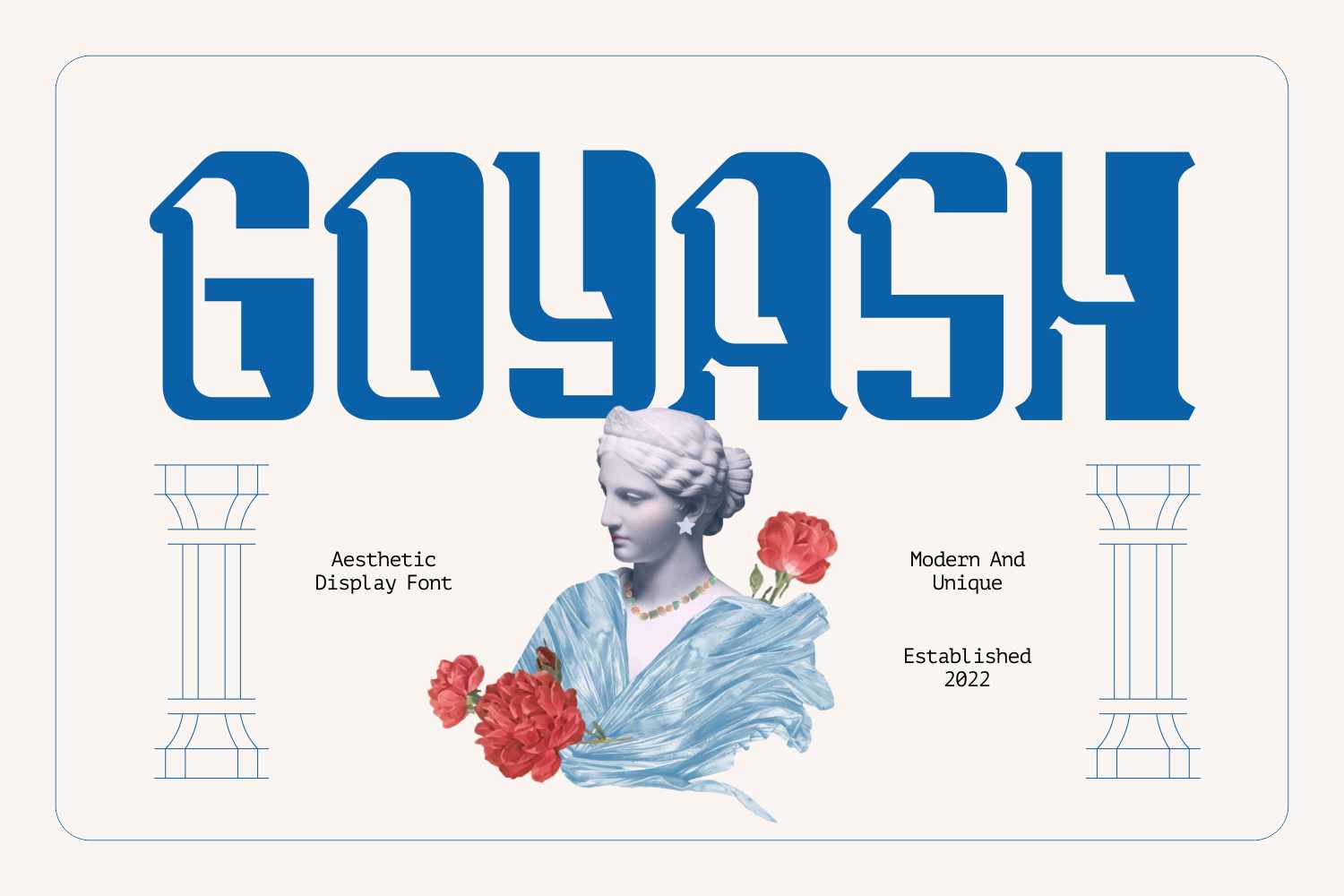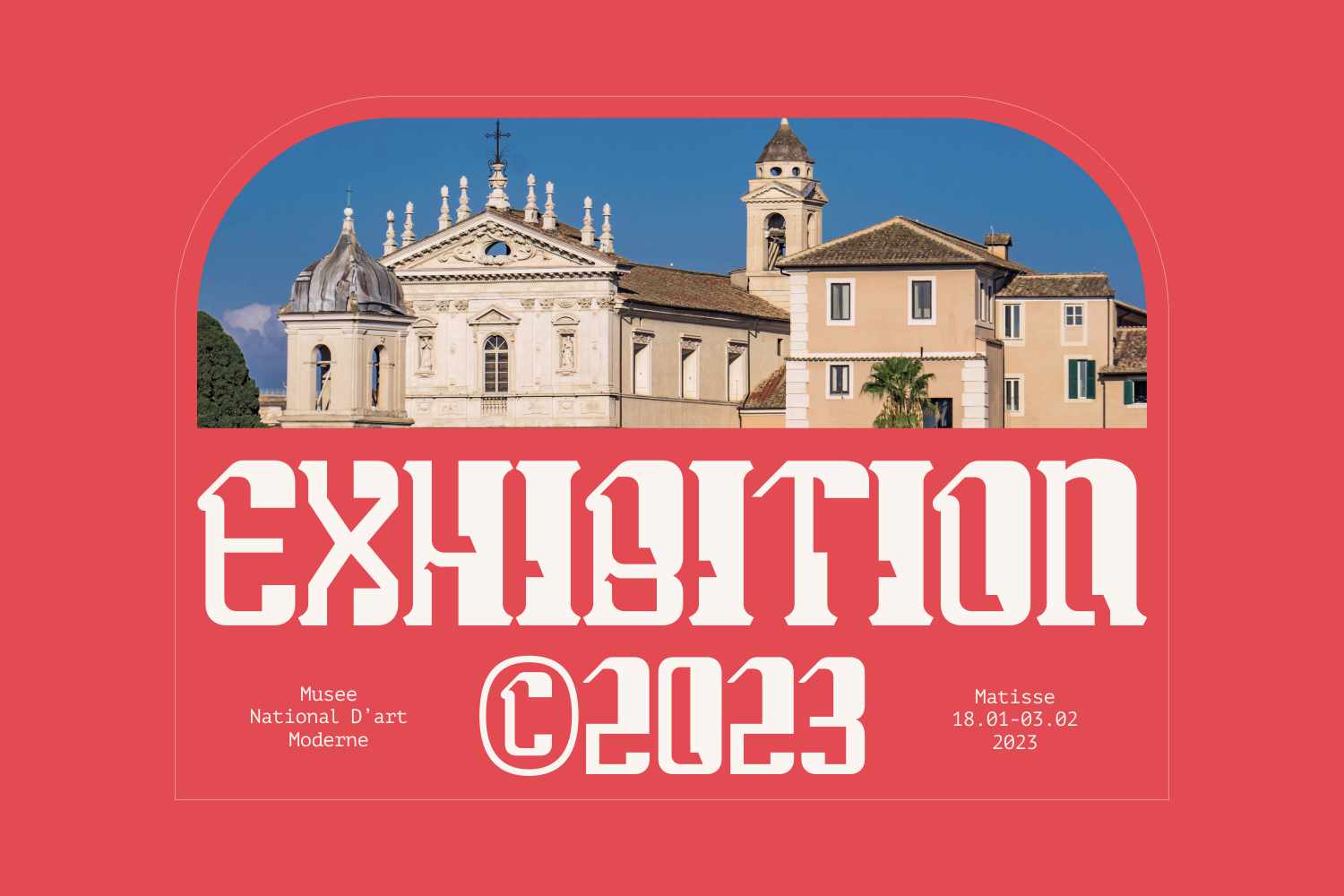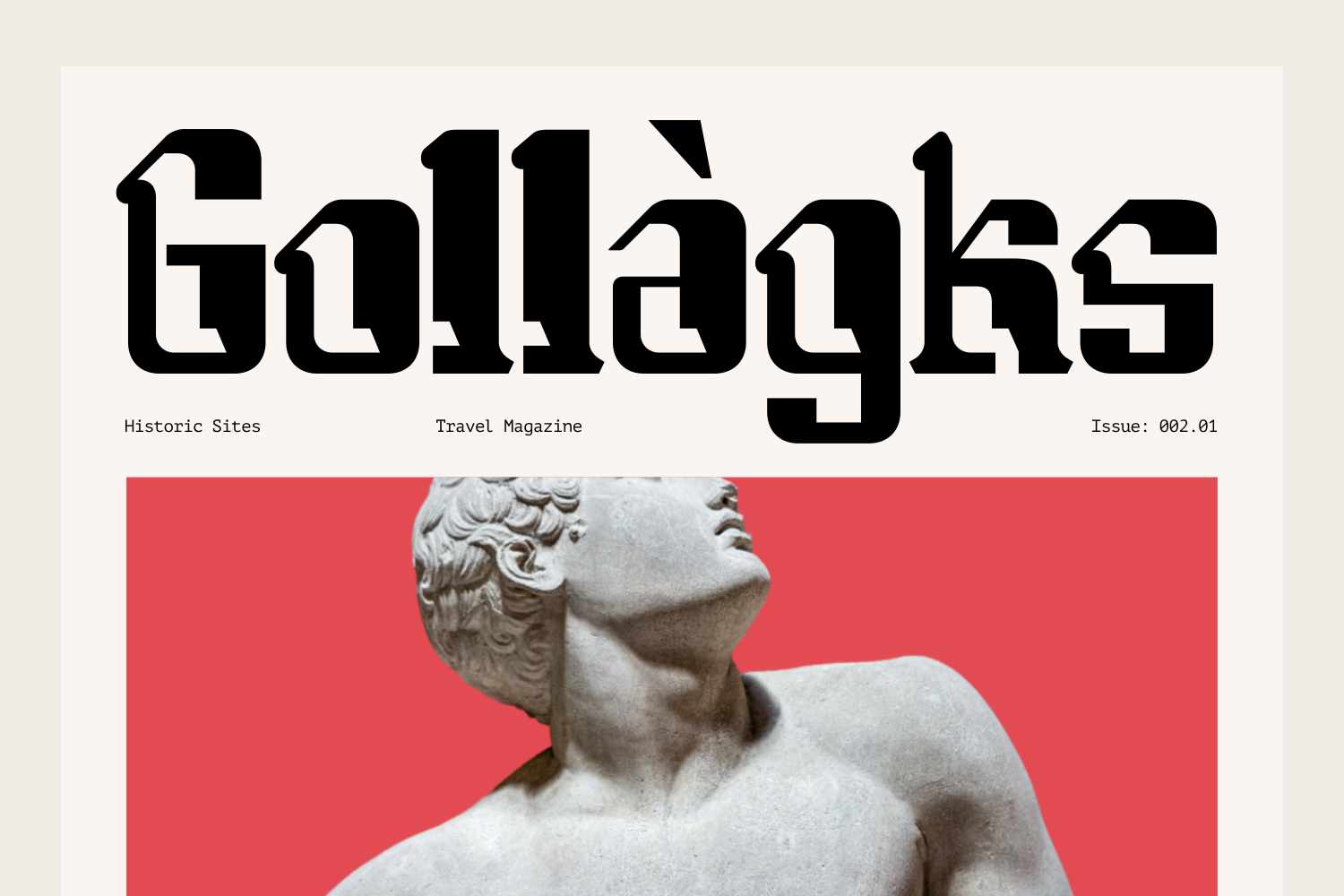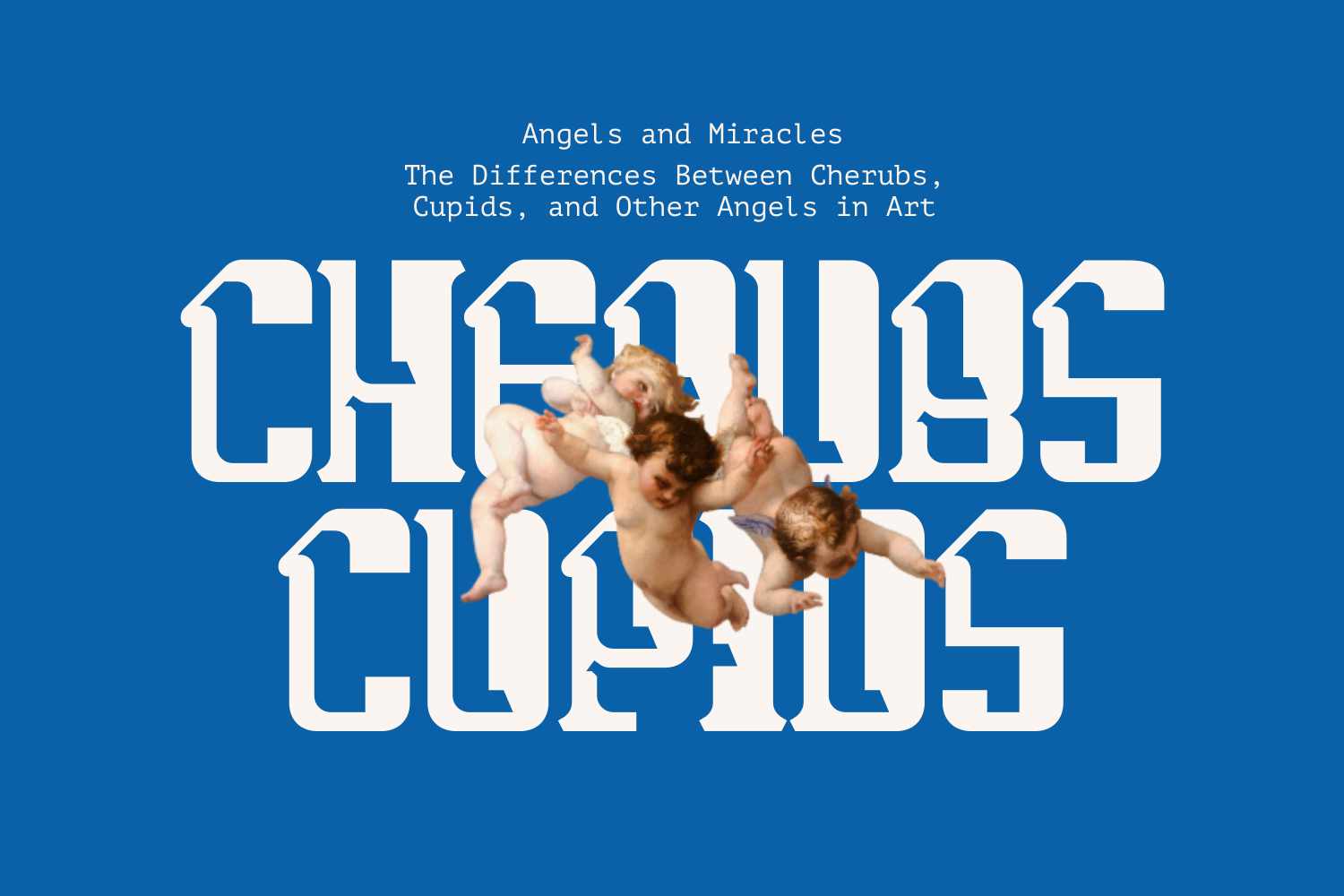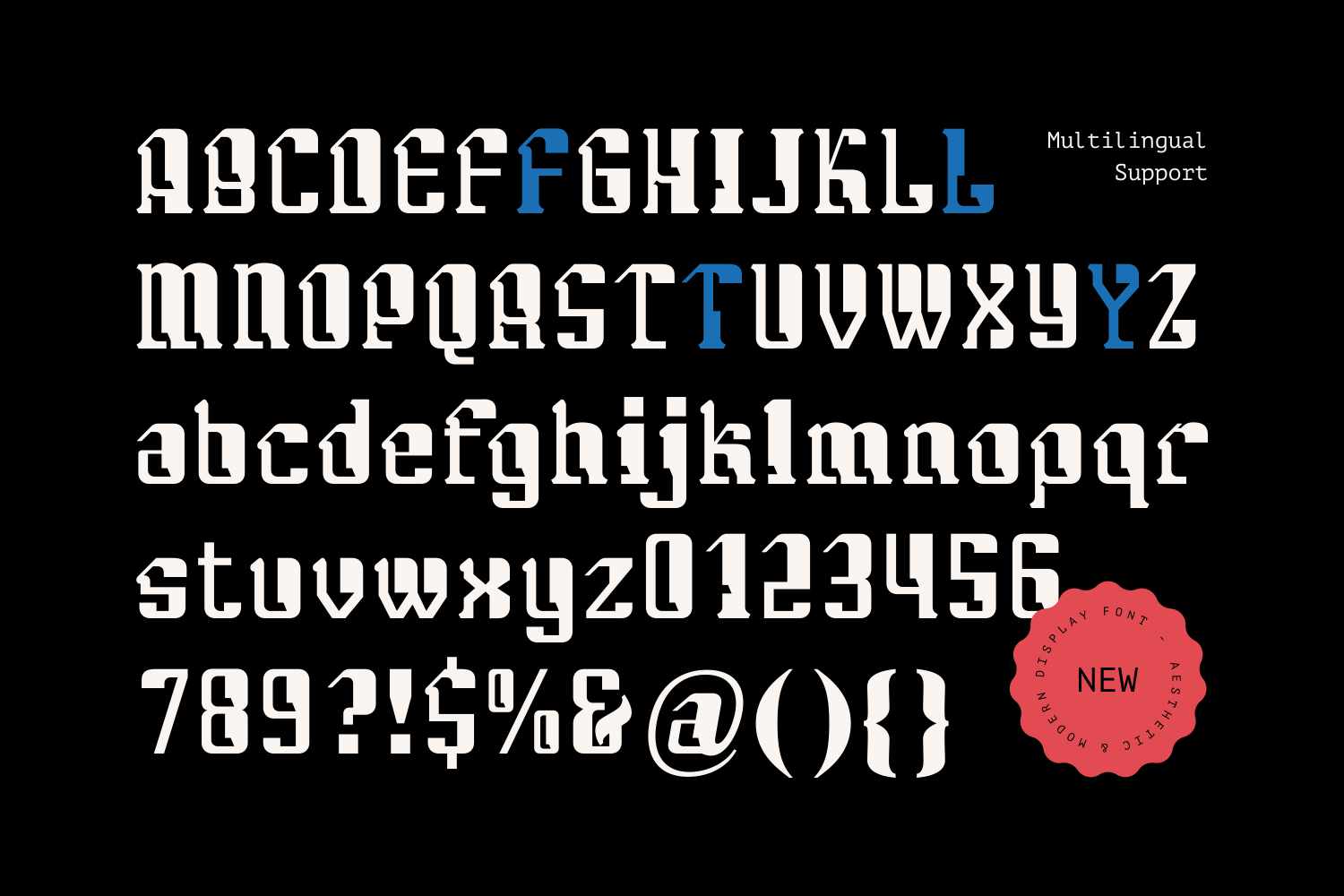
Goyash is a bold and sophisticated display font that blends classical elegance with contemporary edge. Its sharp, architectural letterforms are inspired by Roman sculptural aesthetics and modern brutalist design, making it perfect for editorial headlines, museum posters, art books, and fashion branding. The font commands attention while maintaining an artistic, cultured vibe.
Equipped with uppercase and lowercase characters, numerals, punctuation, and multilingual support, Goyash stands as a versatile choice for both print and digital works. Whether you’re curating a gallery exhibition or crafting a travel magazine cover, this font delivers a strong visual impact rooted in heritage and modernity.
Goyash